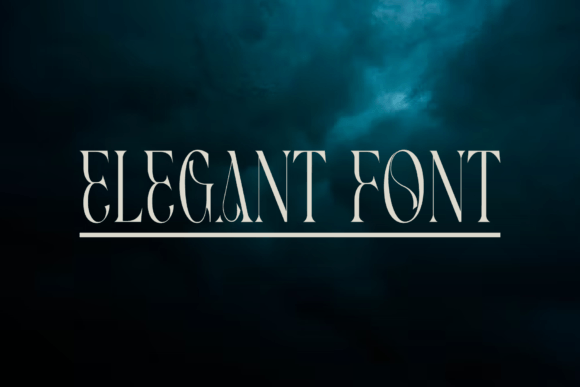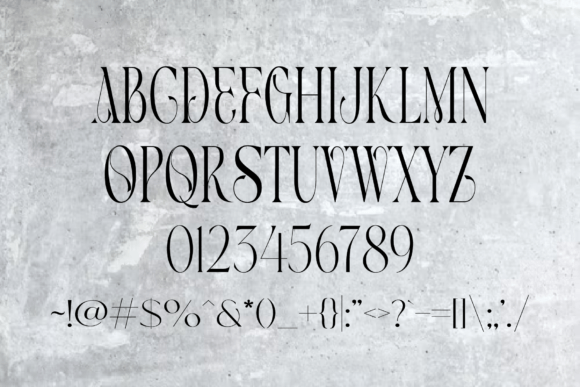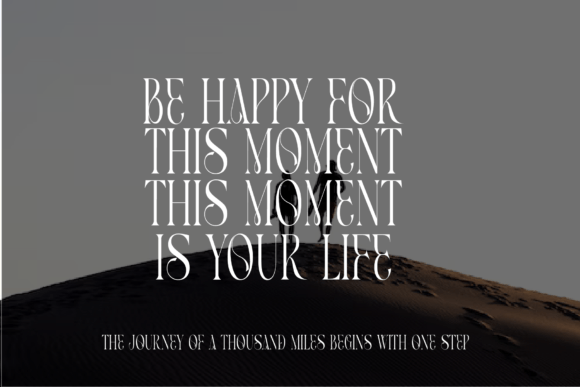
Alegro Font: Elevate Your Design with Elegance and Sophistication
In the world of typography, few fonts manage to convey the essence of luxury and sophistication as effectively as Alegro. This exquisite serif font is a masterclass in refined design, boasting classic letterforms that exude elegance and poise. Whether you’re a designer seeking to elevate your editorial projects or a crafter looking to add a touch of sophistication to your creations, Alegro is an exceptional choice.
The Anatomy of Elegance: Alegro’s Design Features
Alegro’s design is characterized by its tall and slender serifs, which create a sense of verticality and refinement. The font’s delicate curves and fine details are meticulously crafted to evoke a sense of luxury and prestige. The generous spacing between letters ensures optimal legibility and clarity, making it perfect for high-end editorial design, luxury branding, and any project that demands a touch of sophistication.
Timeless Appeal: The Classic Style of Alegro
One of the standout features of Alegro is its classic and timeless style. Unlike trendy fonts that may quickly become outdated, Alegro’s elegant design ensures it remains relevant and stylish for years to come. Its serif structure, reminiscent of traditional printing, adds a sense of authenticity and heritage to any project. Whether you’re working on a luxury magazine, a high-end brand identity, or a sophisticated craft project, Alegro’s classic appeal is sure to impress.
Perfect for High-End Editorial Design and Luxury Branding
Alegro is specifically designed to meet the demands of high-end editorial design and luxury branding. Its refined aesthetic and exceptional legibility make it an ideal choice for:
• Luxury magazines and editorials
• High-end brand identities and logos
• Sophisticated advertising and marketing materials
• Exclusive packaging and label design
• Any project requiring a touch of elegance and sophistication
Why Choose Alegro for Your Design Projects?
With so many fonts available, why choose Alegro for your design projects? Here are just a few compelling reasons:
• Elegance and sophistication: Alegro’s refined design and classic style ensure your projects exude luxury and prestige.
• Exceptional legibility: The font’s generous spacing and delicate curves ensure optimal readability, even at smaller sizes.
• Timeless appeal: Alegro’s classic design ensures it remains stylish and relevant for years to come.
• Versatility: Alegro is suitable for a wide range of design projects, from editorial design to luxury branding and beyond.
Tips for Using Alegro in Your Design Projects
To get the most out of Alegro, consider the following tips:
• Pair with complementary fonts: Alegro pairs beautifully with sans-serif fonts, creating a striking contrast that adds visual interest to your designs.
• Experiment with font sizes: Alegro’s elegant design ensures it remains legible at a range of font sizes, from large headlines to smaller body text.
• Pay attention to color: Alegro’s sophisticated style is elevated by rich, luxurious colors that add depth and opulence to your designs.
Font Name Alegro Font
Author Jaffana co.
Alegro is a truly exceptional font that embodies the essence of luxury and sophistication. Its elegant design, classic style, and exceptional legibility make it an ideal choice for designers and crafters seeking to elevate their projects. Whether you’re working on high-end editorial design, luxury branding, or any project that demands a touch of refinement, Alegro is an outstanding choice. With its timeless appeal and versatility, Alegro is sure to become a staple in your design arsenal.